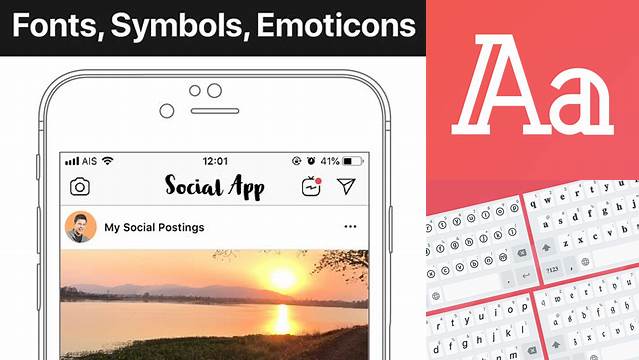
Hey guys! Ever feel like your phone's keyboard is, well, a bit blah? Same here! That's why we're diving deep into the world of AA Fonts Keyboard APK Latest Version. We're not just talking about typing; we're talking about expressing yourself, adding some pizzazz to your texts, and making your social media posts POP! Buckle up, because we're about to transform your phone into a fontastic playground!
1. What Exactly Is AA Fonts Keyboard?
Okay, so what is this magical AA Fonts Keyboard we're hyping up? Simply put, it's a keyboard app that lets you use a ton of different fonts directly on your phone. We're talking cursive, bold, fancy, quirky – you name it, it probably has it! Forget sticking to the same old boring system font. With AA Fonts Keyboard APK latest version, you can inject some serious personality into everything you type. Imagine sending texts that actually reflect your mood or creating Instagram captions that are totally eye-catching. That's the power of this app. It’s about more than just typing words; it’s about making a statement. It’s about adding a personal touch to your digital communication. And the best part? It’s super easy to use. You don’t need to be a tech whiz to get started. Just download the app, enable it in your settings, and you’re ready to roll. So, if you’re looking to spice up your phone’s keyboard and add a bit of flair to your everyday typing, AA Fonts Keyboard APK latest version might just be the perfect solution for you. It’s a simple way to make a big impact, turning your mundane texts into miniature works of art.
6. Exploring the Font Library
This is where the fun really begins! Open up the AA Fonts Keyboard, and get ready to be amazed. Scroll through the massive font library and find fonts that suit your style. We're talking everything from elegant scripts to bold, blocky letters. There's a font for every mood and occasion. Experiment, have fun, and find your favorites! Exploring the font library in the AA Fonts Keyboard APK latest version is where you can truly unleash your creativity and personalize your typing experience. The app offers a vast collection of fonts, ranging from elegant scripts to bold, blocky letters, ensuring that there’s something for every mood and occasion. Take your time to scroll through the library and discover the fonts that resonate with your style. Experiment with different options and find your favorites. You can preview how each font looks by typing a sample text, allowing you to make an informed decision. Whether you’re looking for a sophisticated font for professional emails or a fun, playful font for social media posts, the AA Fonts Keyboard APK latest version has you covered. So, dive in and explore the font library to find the perfect fonts to express yourself and make your messages stand out.
7. Customizing Your Keyboard
Want to take things to the next level? Many font keyboards, including AA Fonts Keyboard APK latest version, let you customize the keyboard's appearance. We're talking themes, colors, and even key sizes. Tweak everything to your liking and create a keyboard that's uniquely you. Customizing your keyboard in the AA Fonts Keyboard APK latest version allows you to create a typing experience that is uniquely yours. Many font keyboards offer a range of customization options, including themes, colors, and key sizes. You can tweak these settings to your liking and create a keyboard that perfectly matches your style and preferences. Choose from a variety of themes to change the overall look of your keyboard, and adjust the colors to create a visually appealing interface. You can also customize the key sizes to make typing more comfortable and efficient. Experiment with different settings and find the perfect combination to create a keyboard that is both functional and aesthetically pleasing. With the AA Fonts Keyboard APK latest version, you have the power to create a keyboard that truly reflects your personality and enhances your typing experience.
8. Using Fonts in Different Apps
Here's the awesome part: once you've enabled AA Fonts Keyboard, you can use those fancy fonts in almost any app! We're talking texting, social media, email – you name it. Just select AA Fonts Keyboard as your keyboard, and start typing in style. Your friends will be so jealous! Using fonts in different apps with the AA Fonts Keyboard APK latest version allows you to add a personal touch to all your digital communications. Once you’ve enabled the keyboard, you can use those fancy fonts in almost any app, including texting, social media, email, and more. Simply select AA Fonts Keyboard as your active keyboard, and start typing in style. Your messages will stand out and grab attention, whether you’re sending a text to a friend or posting on social media. Express yourself and make your messages more engaging with the wide variety of fonts available in the AA Fonts Keyboard APK latest version. Your friends will be amazed by your unique and stylish messages.